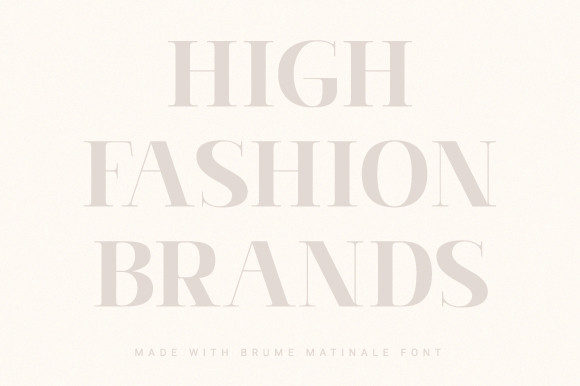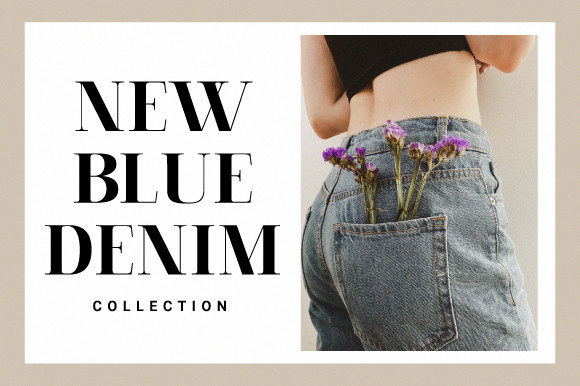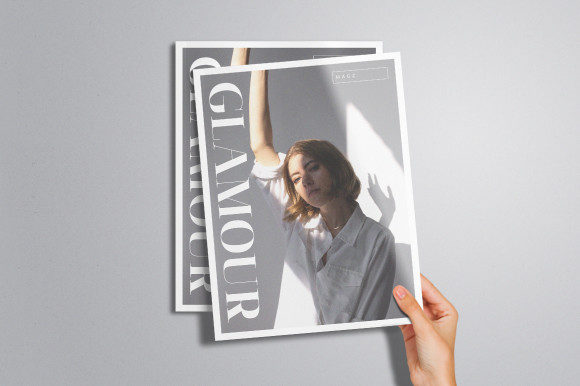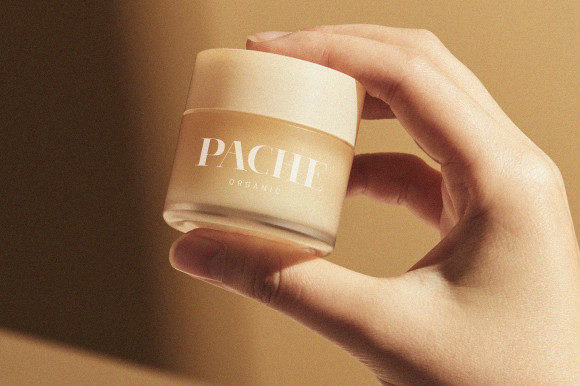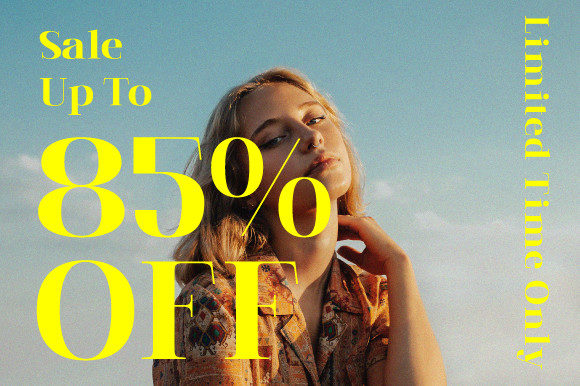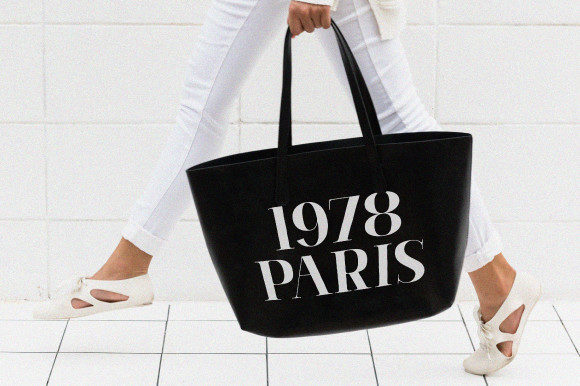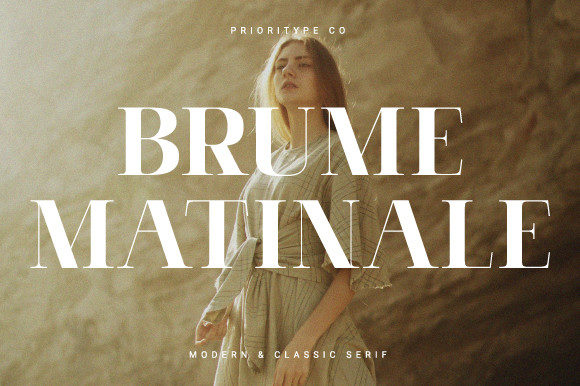
Introducing Brume Matinale: The Authentic Serif Font for Fashion and Creativity
In the world of typography, a font can make or break the visual identity of a brand, product, or creative project. For designers and crafters, finding the perfect font that exudes elegance, sophistication, and assertiveness can be a daunting task. However, with Brume Matinale, a stunning serif font designed specifically for the fashion world, your search is over.
What is Brume Matinale?
Brume Matinale is an authentic and assertive serif font that embodies the essence of high-end fashion. Its unique design elements make it perfect for a wide range of creative applications, including logos, posters, magazines, and more. Whether you’re a designer, craftsperson, or simply a creative enthusiast, Brume Matinale is sure to elevate your projects to new heights.
Key Features of Brume Matinale
- Authentic and Assertive Design: Brume Matinale boasts a distinctive serif design that exudes confidence and sophistication, making it perfect for fashion brands, luxury products, and high-end creative projects.
- Fashion-Focused: Specifically designed for the fashion world, Brume Matinale captures the essence of style, elegance, and glamour, making it an ideal choice for fashion designers, bloggers, and influencers.
- Versatile: While Brume Matinale is designed with fashion in mind, its versatility makes it suitable for a wide range of creative applications, including logos, posters, magazines, and more.
- Easy to Read: Despite its ornate design, Brume Matinale remains highly legible, ensuring that your message is conveyed clearly and effectively.
Use Cases for Brume Matinale
Brume Matinale’s versatility makes it an excellent choice for various creative projects, including:
- Fashion Branding: Establish a strong visual identity for your fashion brand with Brume Matinale’s sophisticated and elegant design.
- Logos and Wordmarks: Create a lasting impression with a custom logo or wordmark designed with Brume Matinale.
- Posters and Flyers: Add a touch of glamour to your promotional materials with Brume Matinale’s assertive and stylish design.
- Magazines and Editorials: Elevate your publication’s visual identity with Brume Matinale’s elegant and refined design.
- Digital Content: Enhance your online presence with Brume Matinale’s clean and legible design, perfect for blogs, social media, and websites.
Why Choose Brume Matinale?
With so many fonts available, why choose Brume Matinale? Here are just a few reasons:
- Unique Design: Brume Matinale’s distinctive design sets it apart from other serif fonts, ensuring your project stands out from the crowd.
- High-Quality: Brume Matinale is crafted with precision and attention to detail, guaranteeing a high-quality font that will elevate your project.
In conclusion, Brume Matinale is an exceptional serif font that is sure to make a statement in the world of fashion and creativity. Its unique design, versatility, and high-quality craftsmanship make it an excellent choice for designers, craftspersons, and creative enthusiasts alike. Whether you’re looking to establish a strong visual identity for your fashion brand or simply want to add a touch of elegance to your creative project, Brume Matinale is the perfect choice.